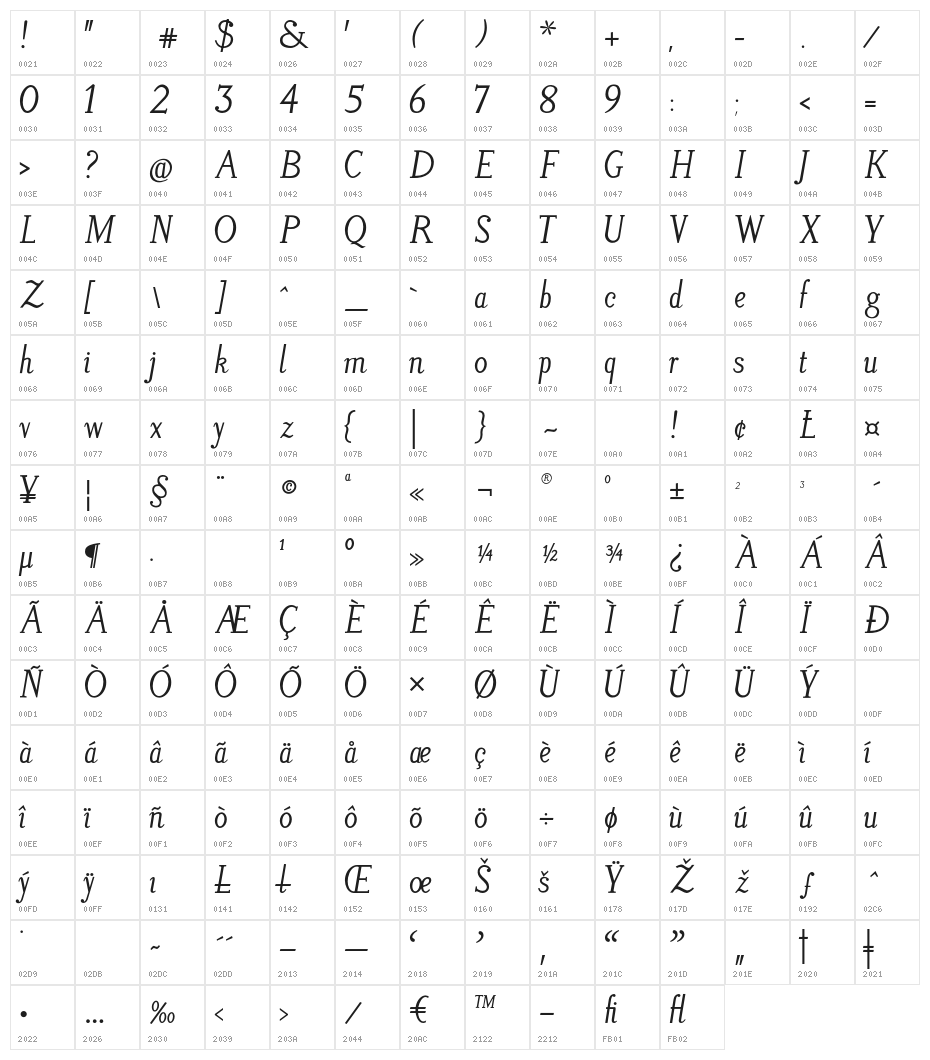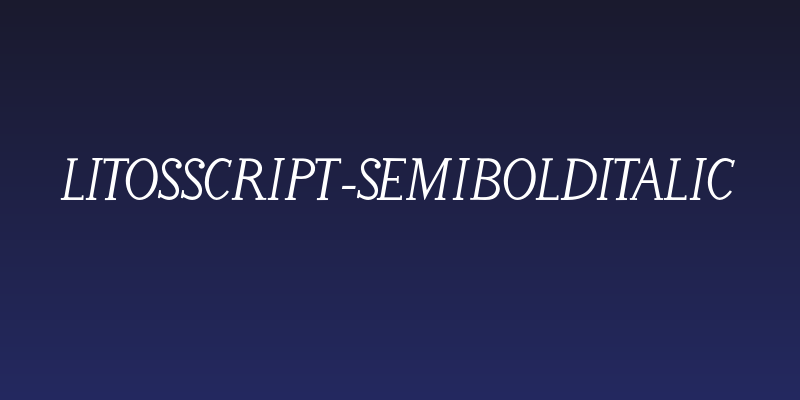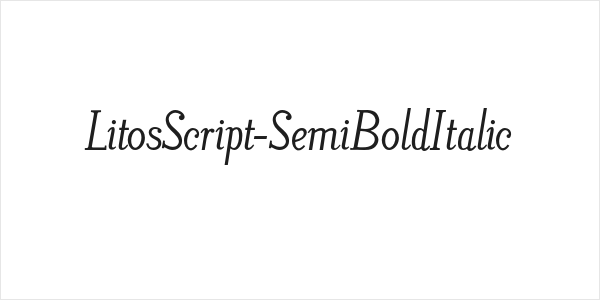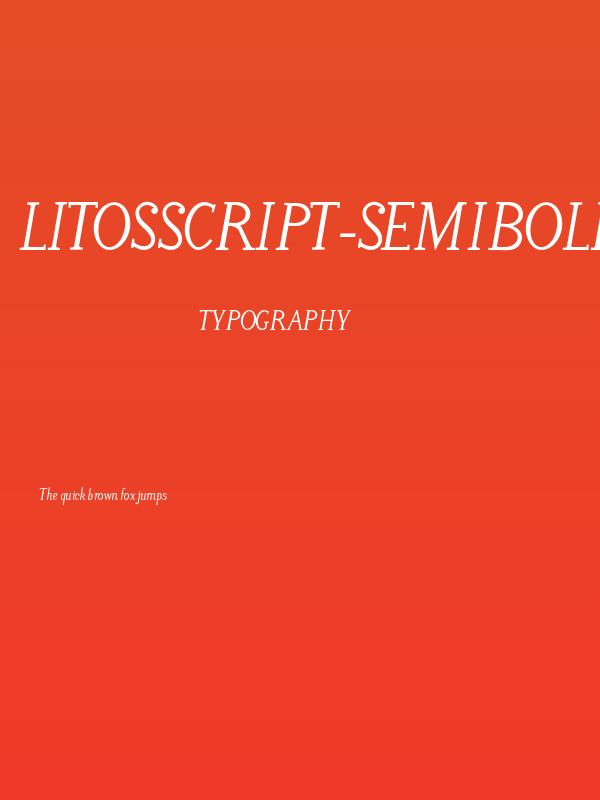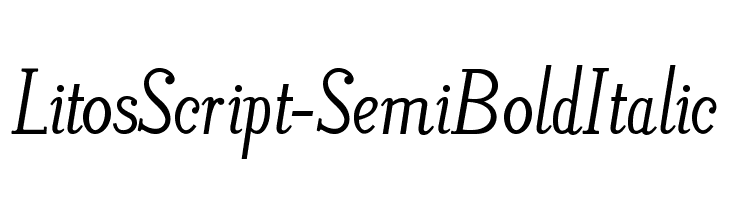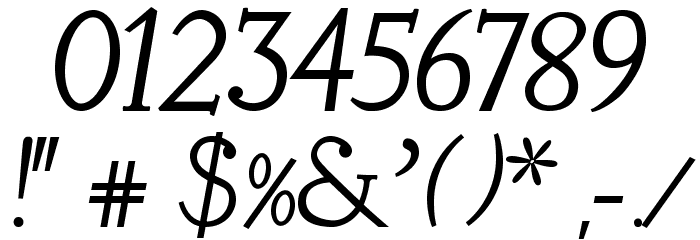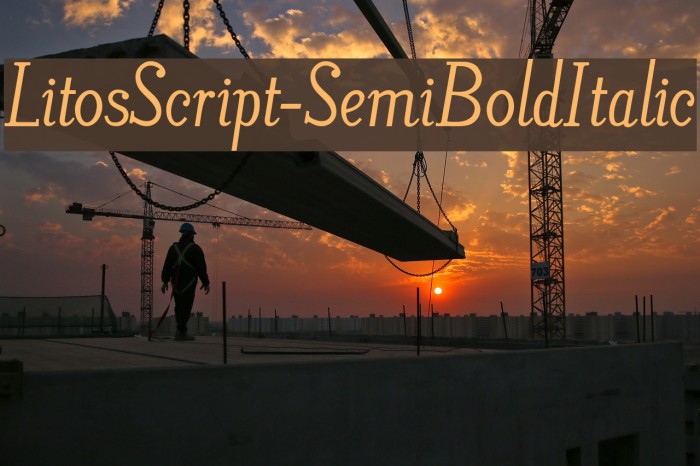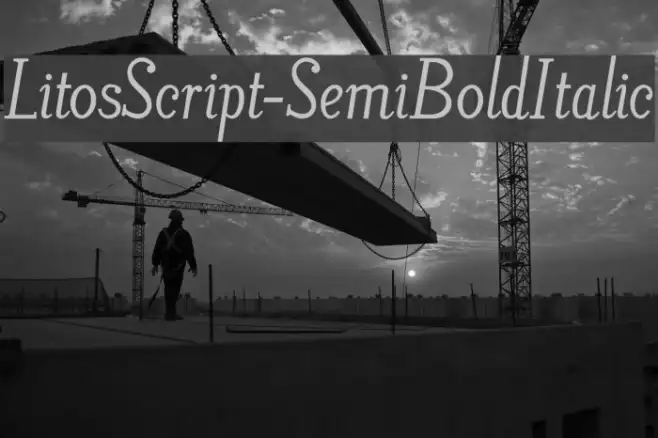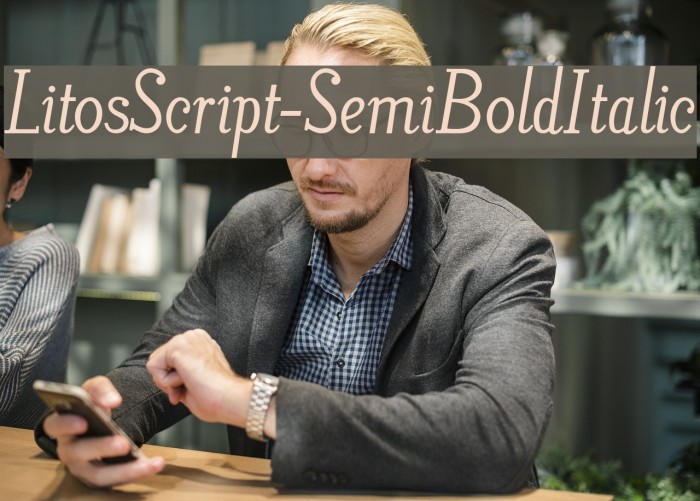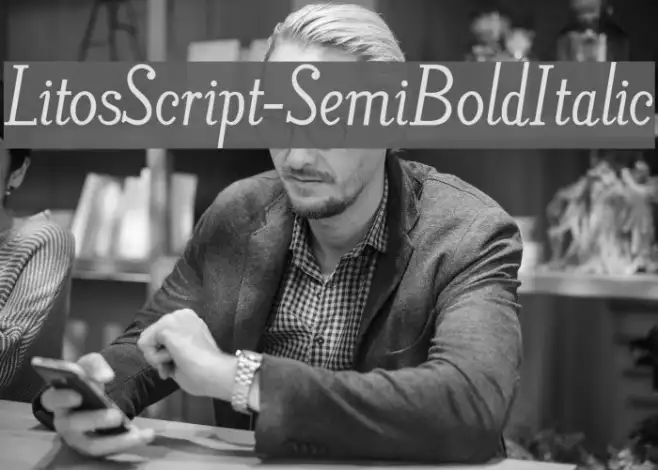
LitosScript-SemiBoldItalic Font
LitosScript-SemiBoldItalic Description
This font exhibits a dynamic and elegant script style with a semi-bold weight, offering a sense of fluidity and sophistication. The italicized characters enhance its graceful appearance, making it suitable for creative and expressive designs. The uppercase letters are slightly taller, providing a balanced contrast with the lowercase letters, which have a gentle slant. The numerals are clear and consistent, maintaining the overall aesthetic. Special characters are well-integrated, ensuring versatility in various design contexts. The font's smooth curves and refined strokes contribute to its modern yet timeless appeal.
| Use Case | Logos, Invitations, Editorial Design |
| Proposed Projects | Ideal for wedding invitations, elegant branding, greeting cards, and editorial design. |